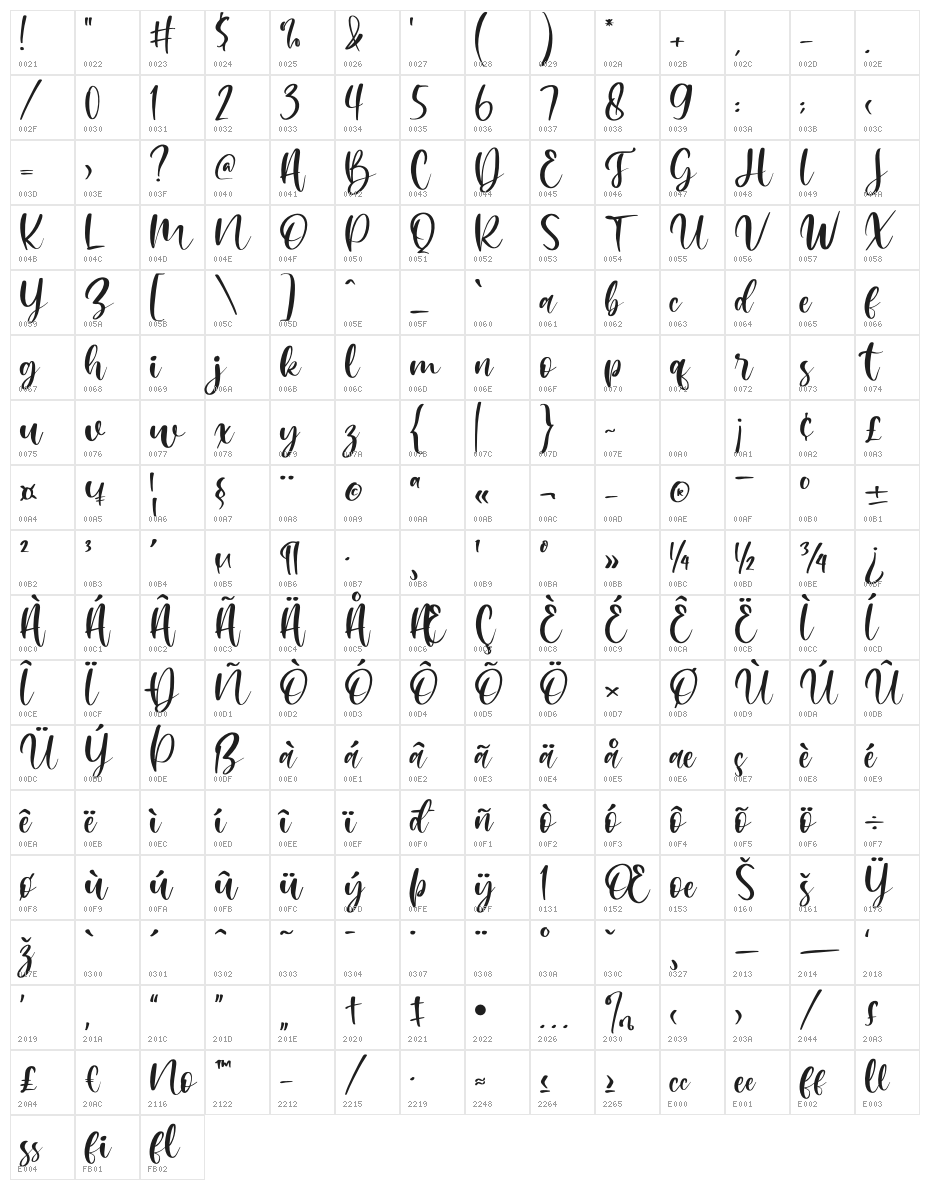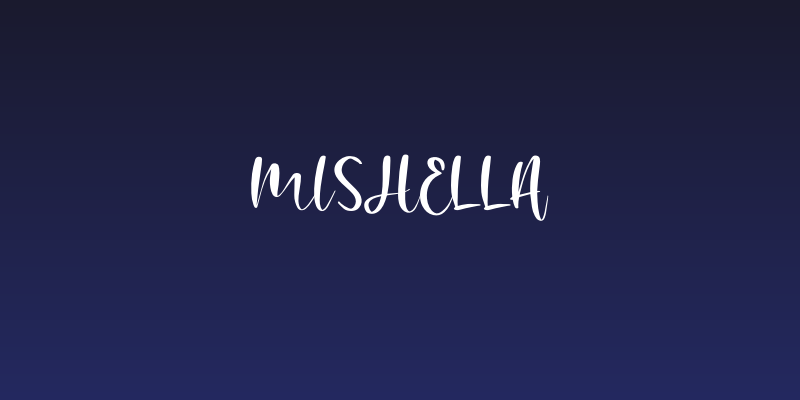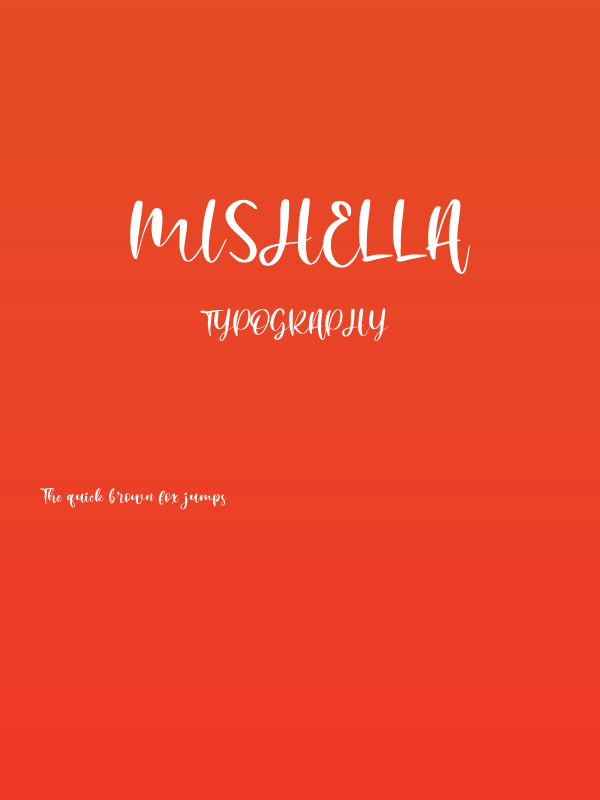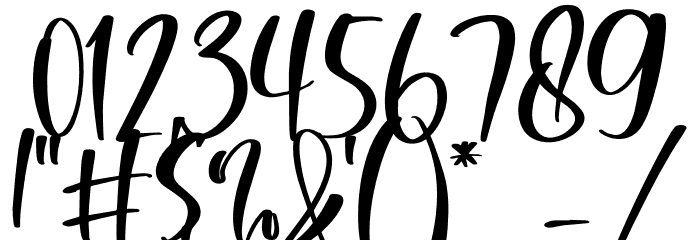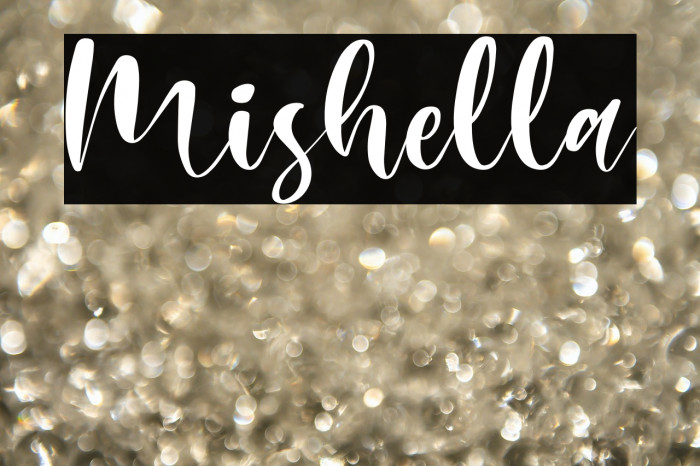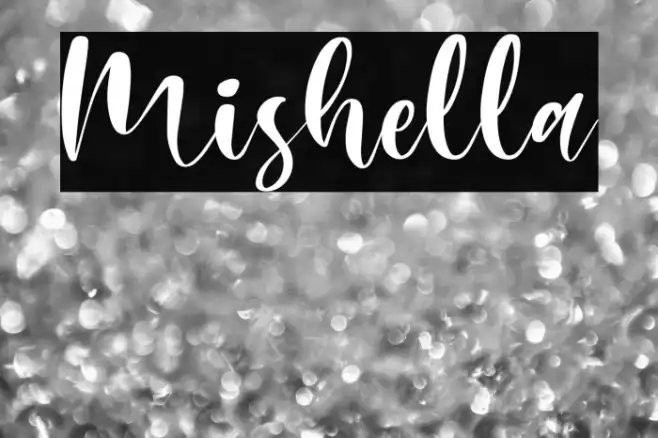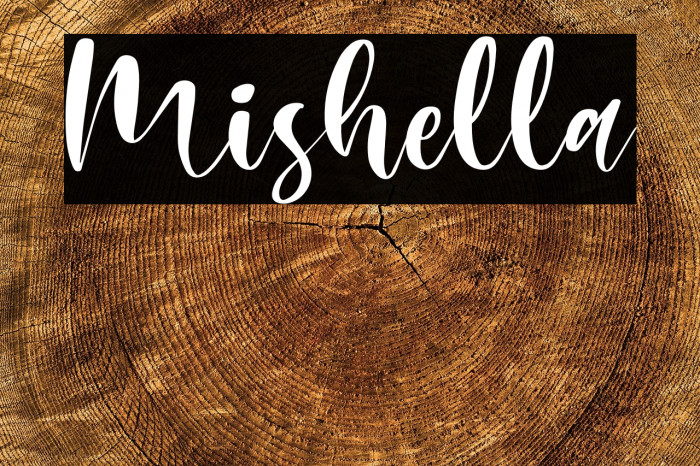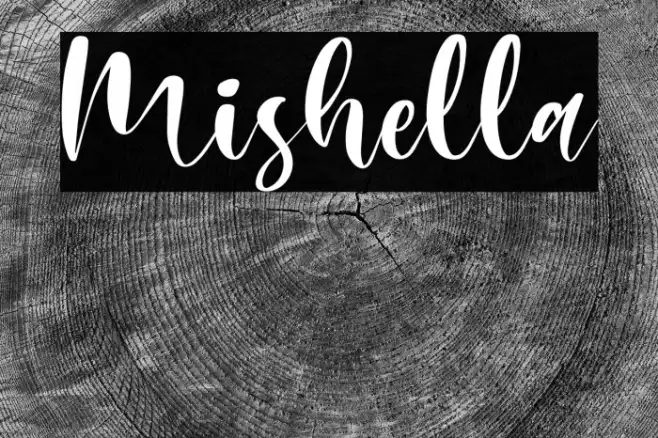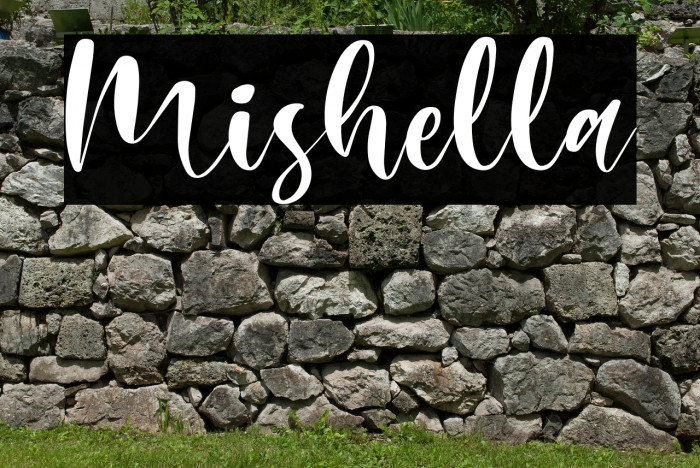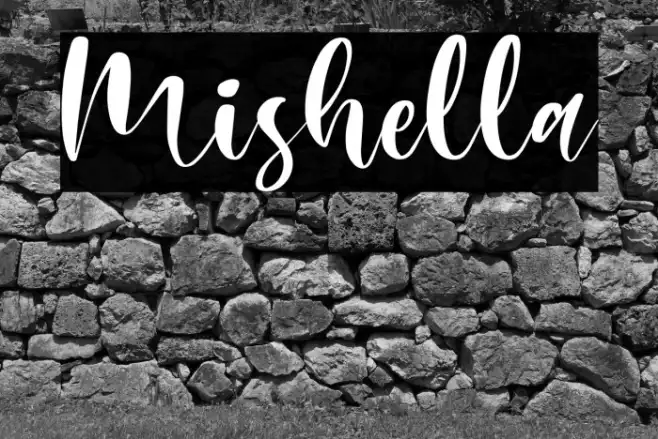
Mishella Font
Mishella Description
This font features a flowing, cursive style that exudes elegance and sophistication. The characters are interconnected with smooth, sweeping strokes, creating a sense of fluidity and motion. The uppercase letters are bold and prominent, while the lowercase letters maintain a consistent flow, enhancing readability. The numerals and special characters are designed with the same graceful curves, ensuring a cohesive look throughout. This font's artistic flair makes it ideal for projects that require a touch of class and creativity.
| Overall Style | Elegant, Artistic |
| Proposed Projects | Ideal for wedding invitations, greeting cards, branding, and elegant packaging. |